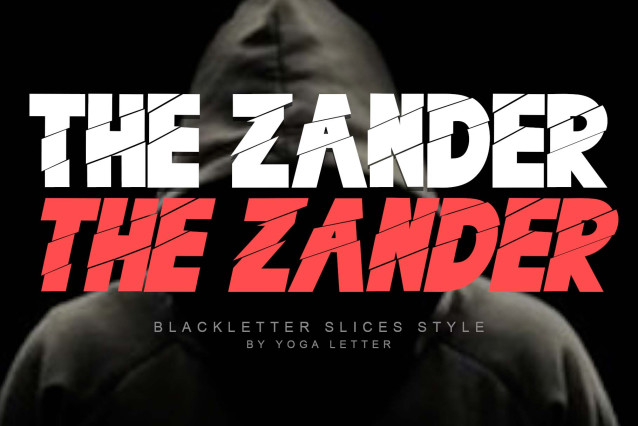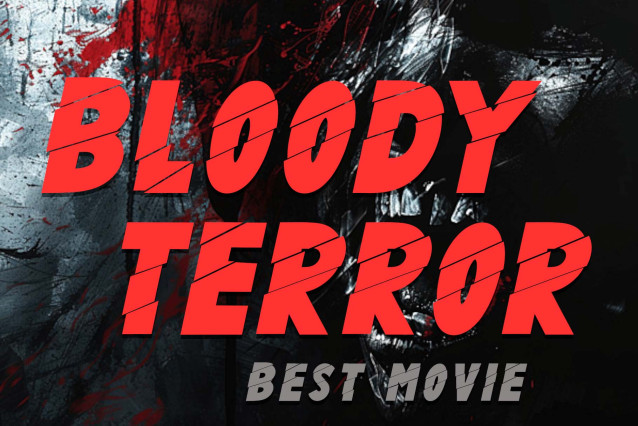
The Zander Font
The Zander Font is a display font with cuts on each letter. This font is equipped with two types of fonts, namely regular and italic. Equipped with capital letters, lowercase letters, numbers, punctuation, and multilingual support. Very suitable for business branding, posters, stickers, branding, banners, logos, and others.